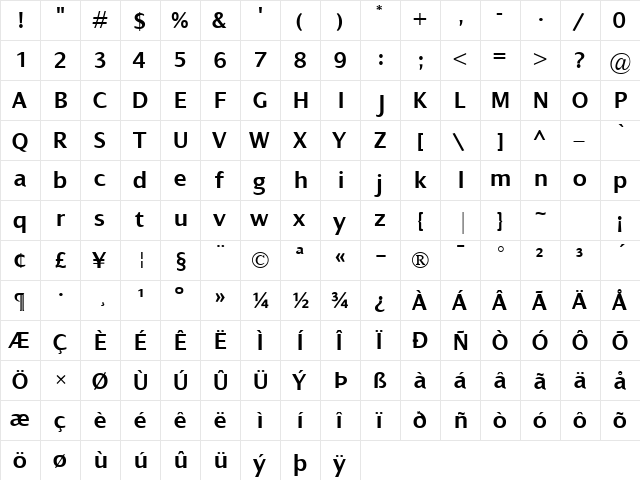
Dialog SemiBold Regular
Design Context for Dialog SemiBold Typeface
Dialog SemiBold offers clean, dependable letterforms without strong stylistic allegiance, making it a practical choice for designers who need flexibility. The heavy weight commands attention and anchors typographic hierarchies.